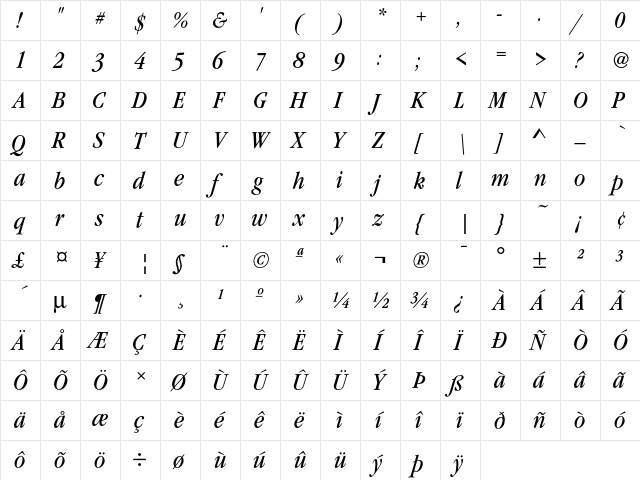
GaramItcTBooConIta Regular Font Preview
GaramItcTBooConIta Regular
Design Context for GaramItcTBooConIta Typeface
GaramItcTBooConIta is a composed and adaptable typeface that performs quietly and consistently across a wide range of design contexts.